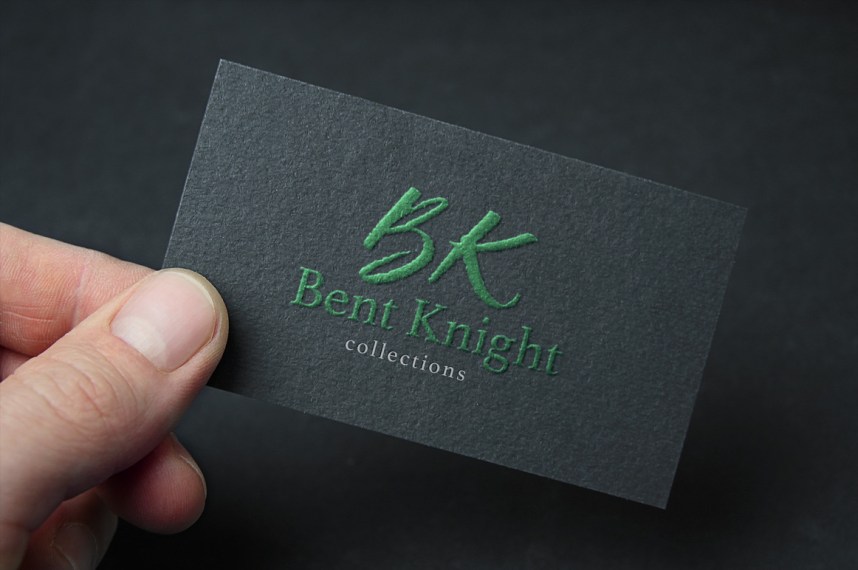
Strike One Free Font
Introducing Strike One Script Font, a new script font, designed and shared by Jroh Creative. Strike One Free Font present more complete than ever, consisting of Opentype Features; standard ligatures, contextual alternates and 11 swash. This font was created to help you designing brand of yours own or your client, and you also can use it for designing all of the graphic stuff such as badge, sign, packaging, headline, T-shirt/apparel, Poster, etc.